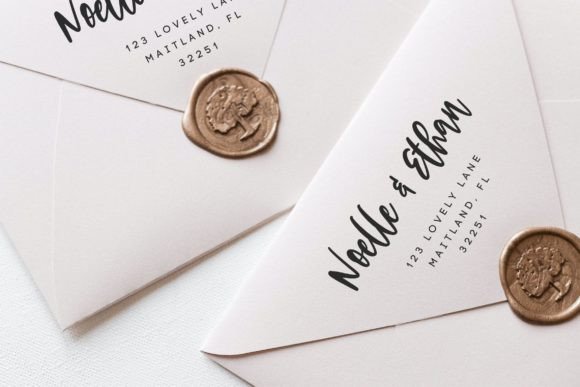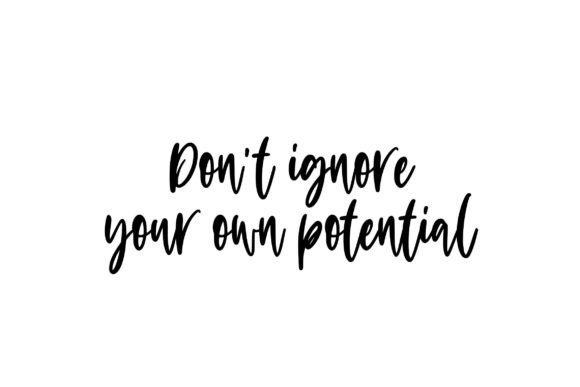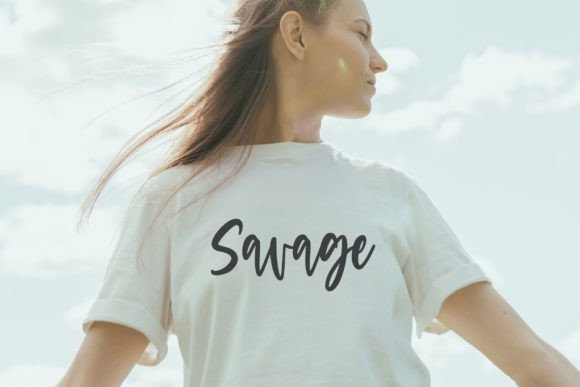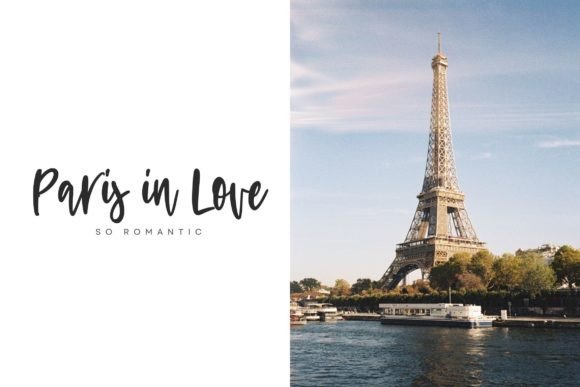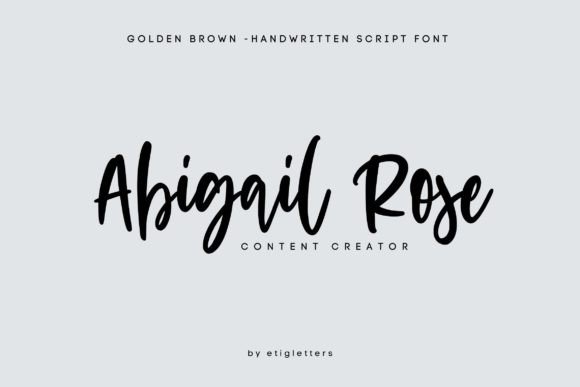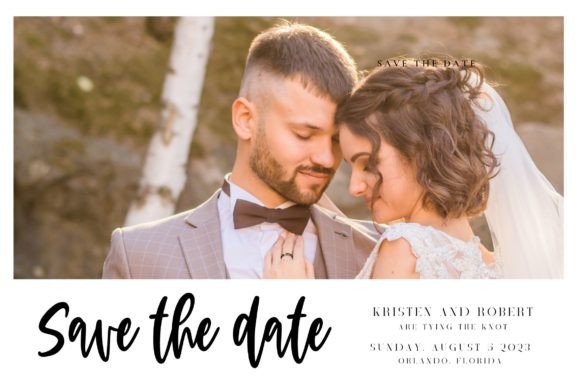
Introducing Golden Brown Font: Elevate Your Designs with Elegance
Are you on the hunt for a font that exudes sophistication and charm? Look no further than Golden Brown, a delicate and elegant handwritten font that’s sure to capture your heart. With its distinct and well-balanced letters, Golden Brown is a masterpiece that will take your designs to the next level.
The Beauty of Golden Brown Font
Golden Brown Font is a true gem in the world of typography. Its unique, handwritten style is characterized by flowing lines, subtle curves, and a delicate touch that’s reminiscent of traditional calligraphy. Each letter is carefully crafted to ensure that the font is not only aesthetically pleasing but also highly legible.
What Makes Golden Brown Font Stand Out?
- Delicate and Elegant: Golden Brown Font boasts a refined, sophisticated look that’s perfect for designs that require a touch of luxury and elegance.
- Well-Balanced Letters: The font’s letters are meticulously designed to ensure that they’re well-proportioned and harmonious, making it a joy to read and use.
- Incredibly Versatile: Whether you’re working on a branding project, a wedding invitation, or a digital product, Golden Brown Font adapts seamlessly to any design style or theme.
Use Golden Brown Font to Create Spectacular Designs
- Wedding Invitations and Stationery: Add a touch of romance and sophistication to your wedding designs with Golden Brown Font.
- Branding and Packaging: Use Golden Brown Font to create elegant logos, labels, and packaging that will make your brand stand out.
- Digital Products: Incorporate Golden Brown Font into your digital products, such as e-books, printables, and planners, to give them a professional and polished look.
- Social Media Graphics: Elevate your social media graphics with Golden Brown Font, perfect for creating eye-catching quotes, promotions, and announcements.
Tips for Using Golden Brown Font Effectively
- Pair it with Contrasting Fonts: Combine Golden Brown Font with a bold, modern font to create a striking contrast that adds visual interest to your design.
- Experiment with Colors: Try pairing Golden Brown Font with different colors, such as rich jewel tones or soft pastels, to create a unique and captivating look.
- Use it for Headings and Titles: Golden Brown Font is perfect for headings and titles, where its elegant style can shine.
In conclusion, Golden Brown Font is a true gem for designers and crafters looking to add a touch of elegance and sophistication to their work. With its delicate and elegant style, well-balanced letters, and incredible versatility, Golden Brown Font is sure to become a favorite in your design arsenal. So why wait? Fall in love with Golden Brown Font and start creating spectacular designs today!